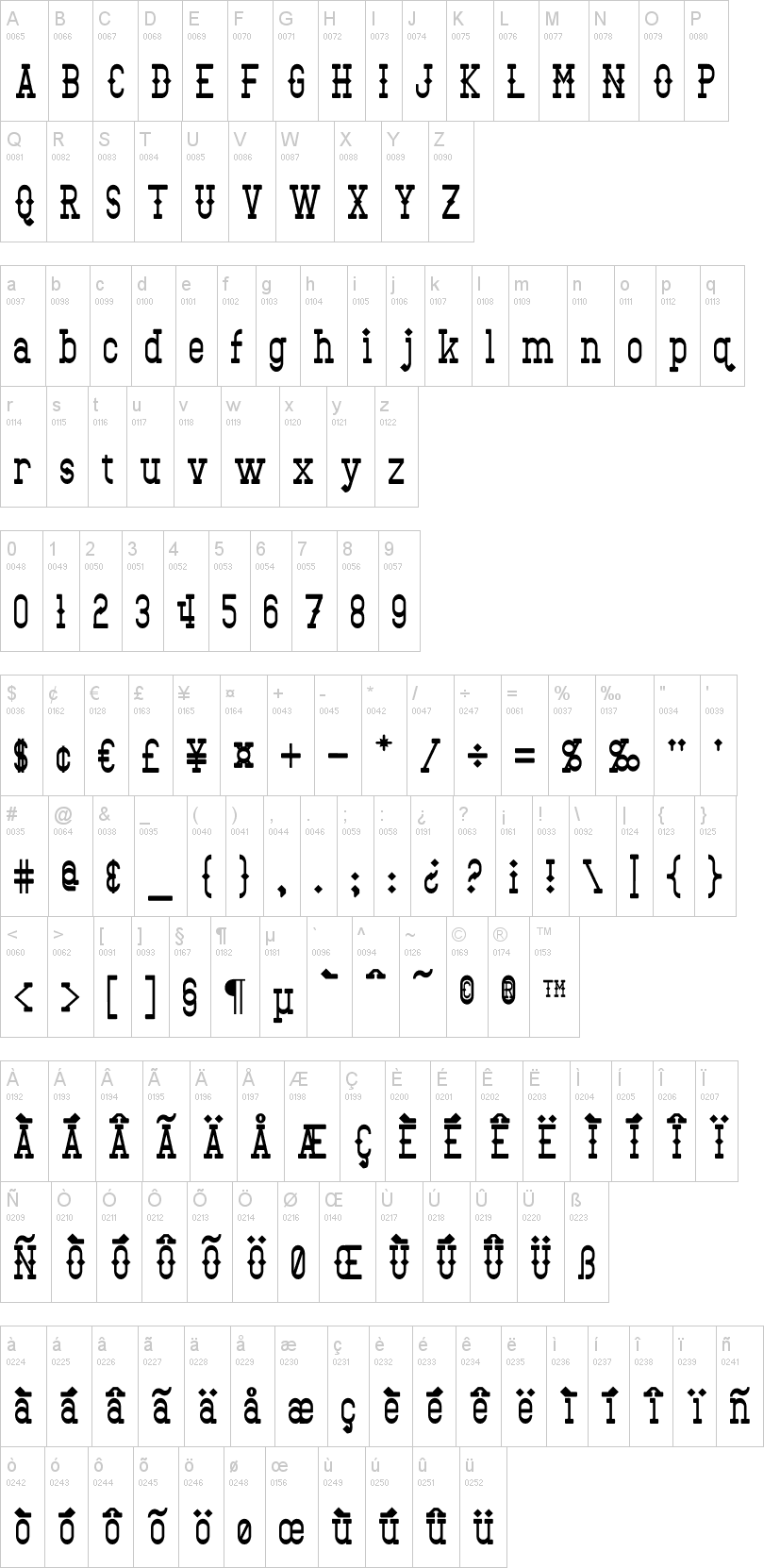
Bantorain Italic.otfBantorain Bold.otfBantorain Bold Italic.otfNote of the authorA simple 'old west' font based on some of the common building marquees of the period. Includes international characters, Euro, full alphabet and punctuation.